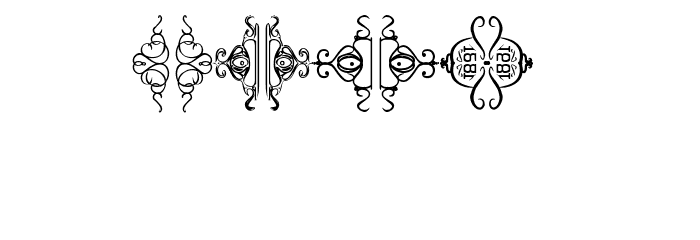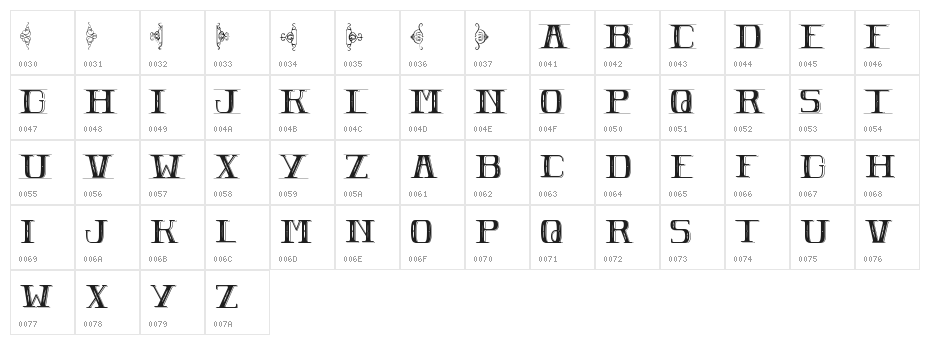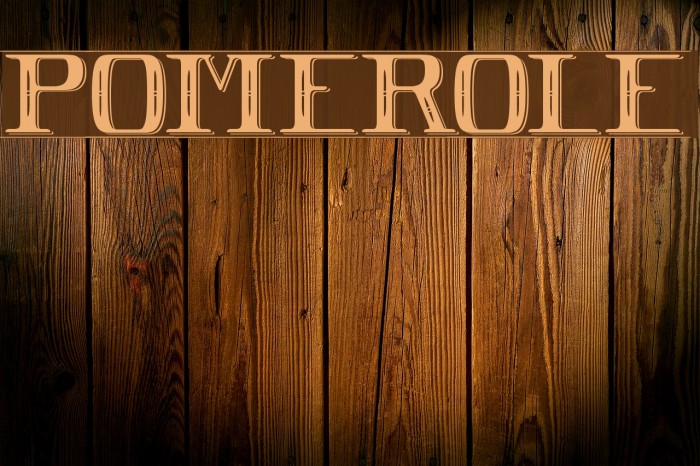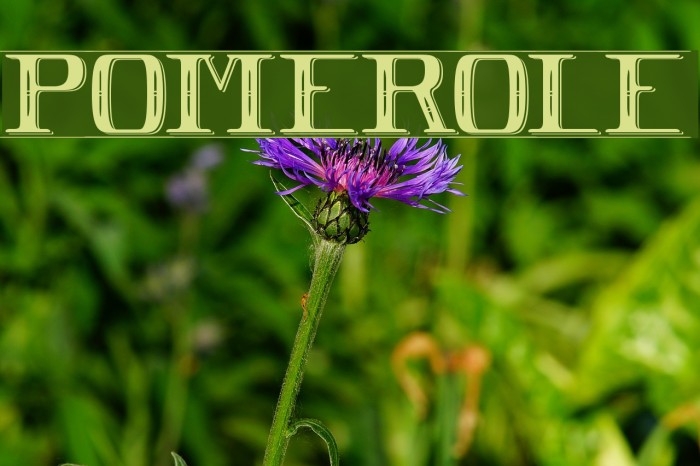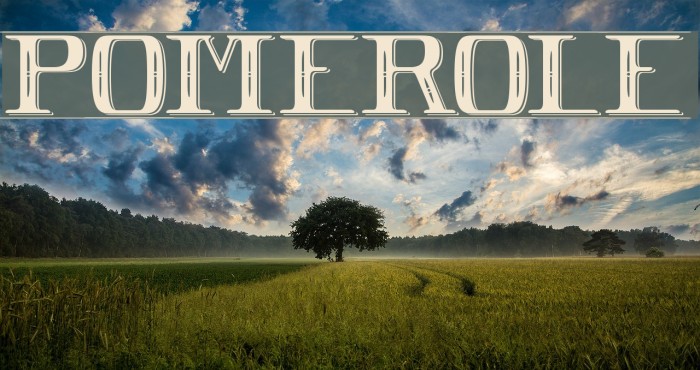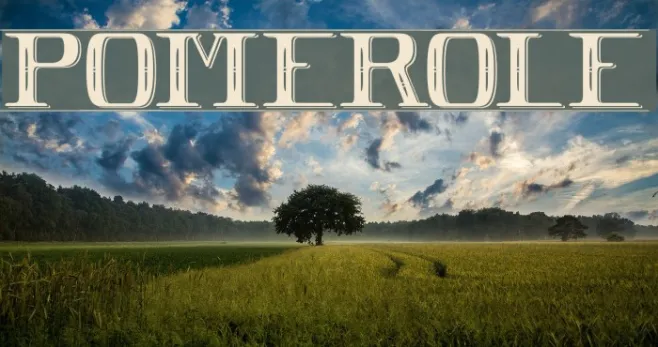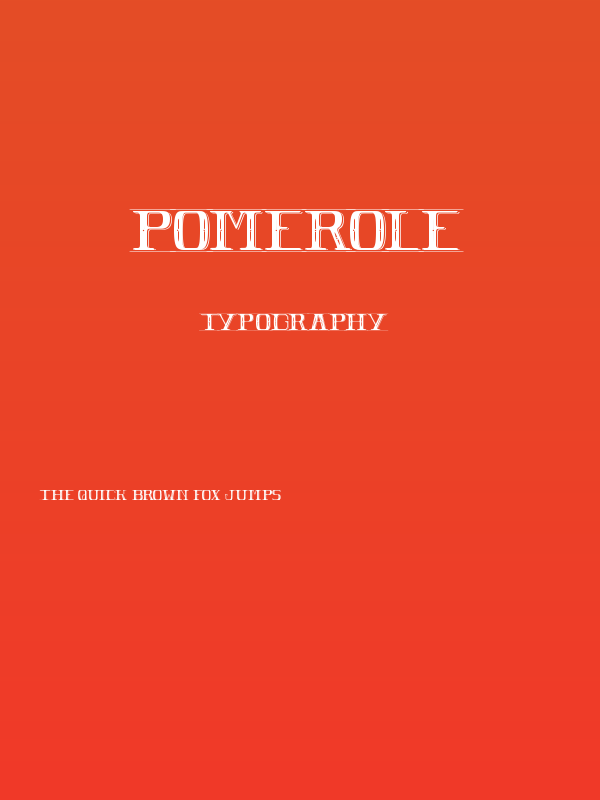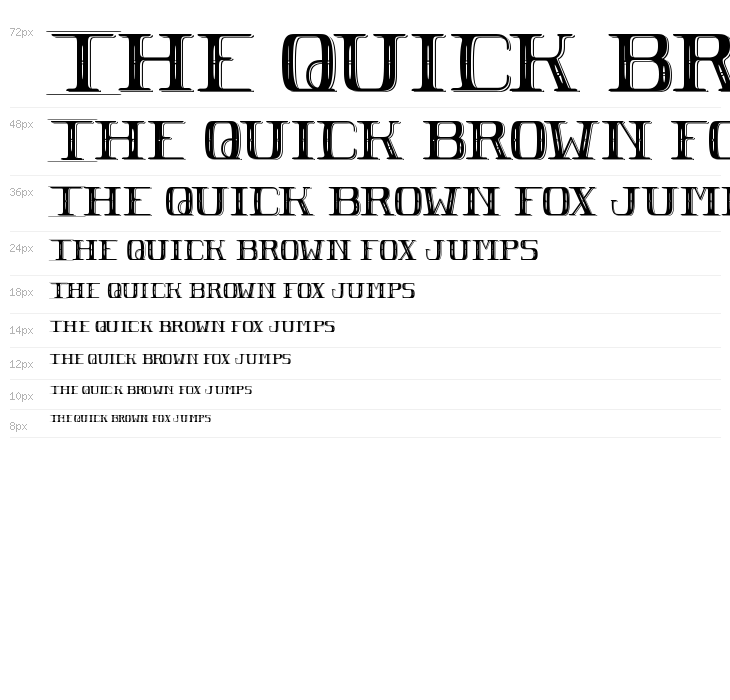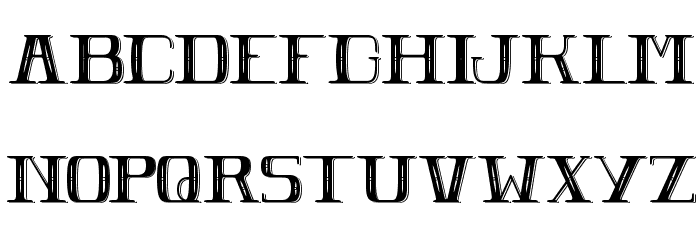
POMEROLE Font
POMEROLE Description
This font features an ornate and decorative style with intricate detailing within each character. The uppercase letters are characterized by their bold, elongated forms and unique embellishments that give a vintage and sophisticated appearance. The design incorporates thin, elegant lines and flourishes that add a touch of elegance and complexity, making it stand out as a display typeface. The overall aesthetic is reminiscent of classic Victorian or Art Nouveau styles, with a modern twist that enhances its visual appeal.